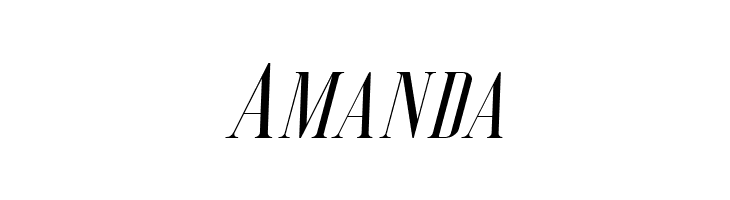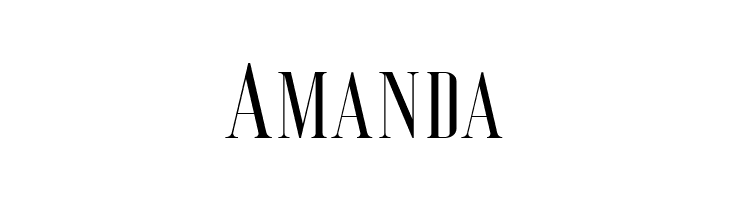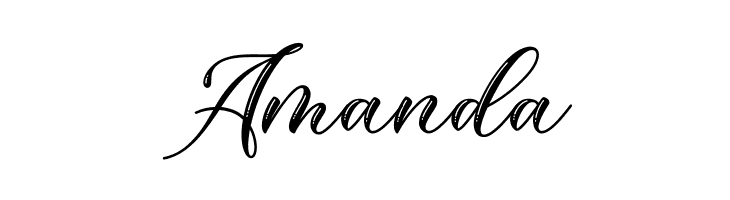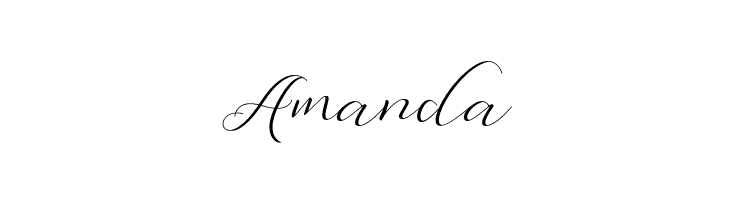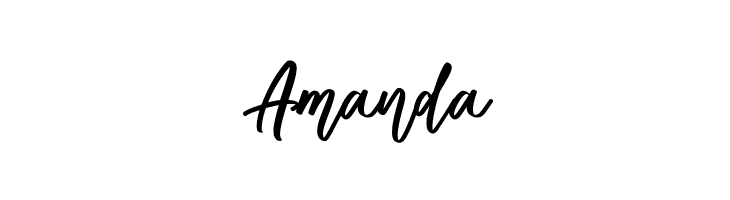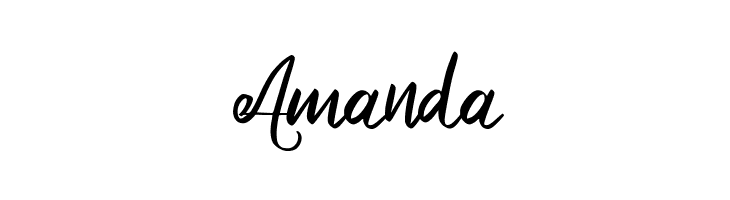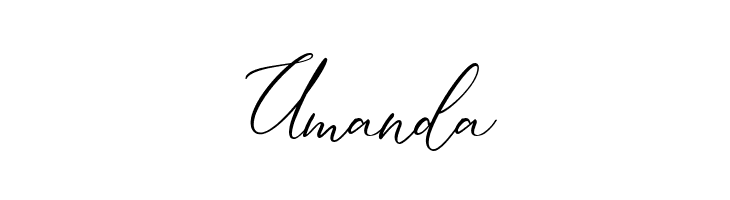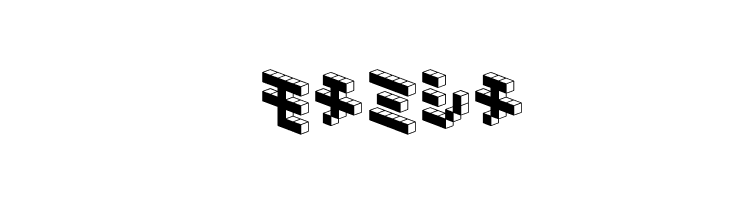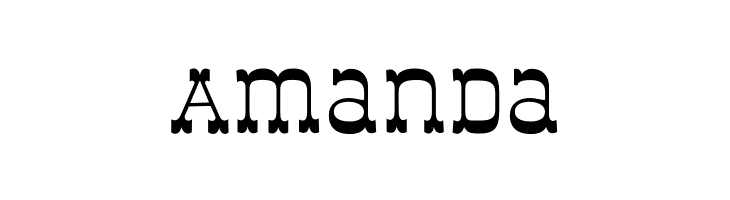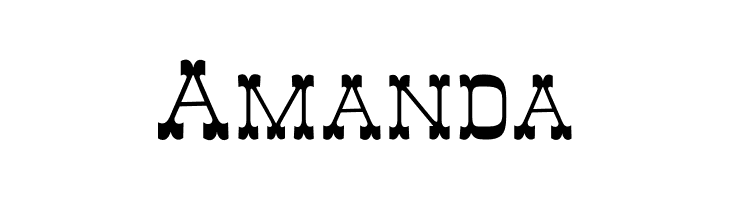
An ornate, decorative font with intricate floral patterns within square frames.
A dynamic and elegant script font with flowing, cursive letterforms.
An elegant script font with flowing, interconnected letters and high contrast strokes.
An elegant script font with flowing, calligraphic lines and ornate details.
An elegant script font with flowing, cursive letters and ornate flourishes.
A bold, expressive handwritten font with dynamic cursive letterforms.
A bold slab serif font with a vintage Western style.
A bold, decorative slab serif font with strong, impactful characters.
A bold slab serif font with a vintage yet modern appeal.
A decorative script font with elegant, flowing characters and intricate details.
A geometric, futuristic font with sharp angles and consistent stroke width.
An elegant italic font with sleek, elongated letterforms and high contrast strokes.
A sophisticated, high-contrast serif font with tall, narrow letterforms.
A playful, hand-drawn font with a sketch-like texture and bold outlines.
An elegant script font with flowing, cursive letterforms and ornate details.
A whimsical, creature-inspired decorative font with bold, artistic characters.
A bold, 3D italic font with a dynamic and energetic style.
A bold, 3D geometric font with a vintage flair.
A bold, condensed font with a rugged, distressed appearance.
A bold, condensed, and italicized font with dynamic angles.
A bold, modern font with sharp angles and a strong presence.
A bold, expanded, and italicized font with dynamic and angular characters.
A bold, italicized font with a striped gradient effect and a modern, dynamic style.
A bold, modern font with a gradient effect and horizontal line pattern.
A bold, italic font with sharp, angular edges and dynamic styling.
A bold, left-slanted font with sharp angles and a modern, edgy style.
A bold, gothic-style font with sharp, angular edges and a medieval flair.
A bold, slanted font with a dynamic and energetic style.